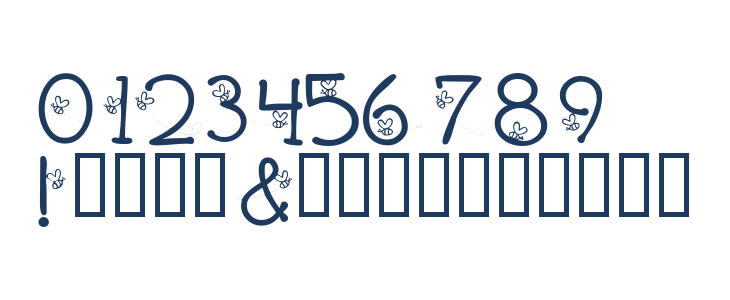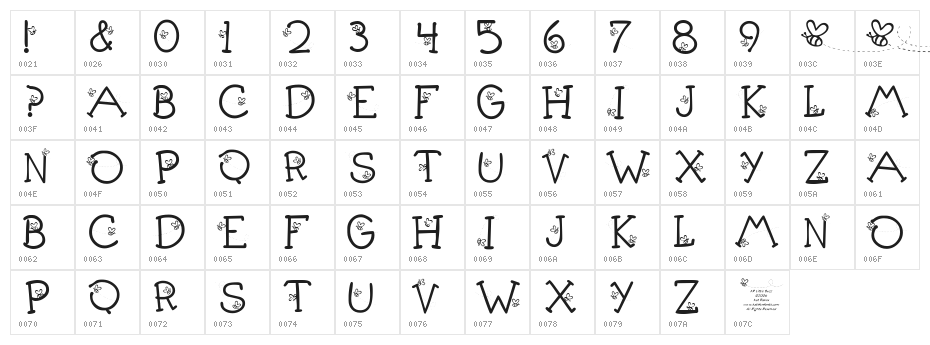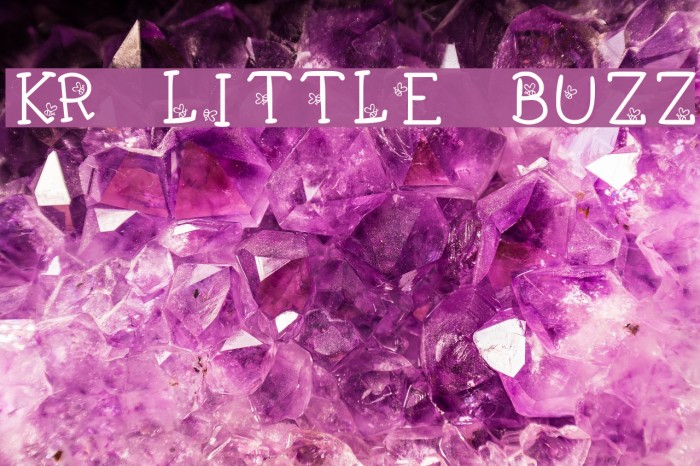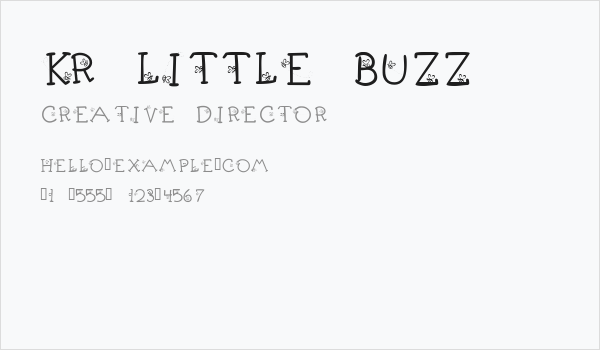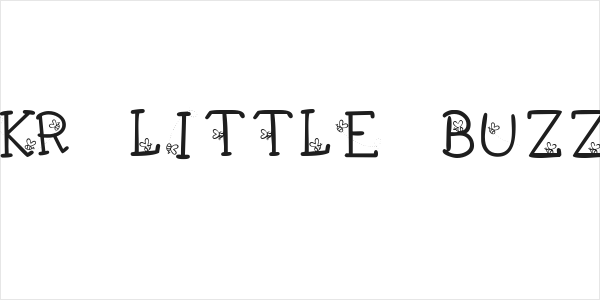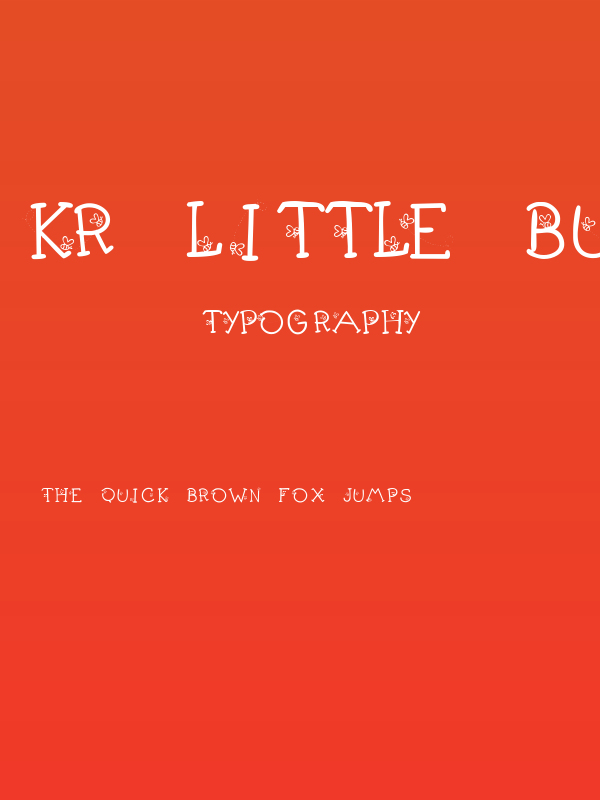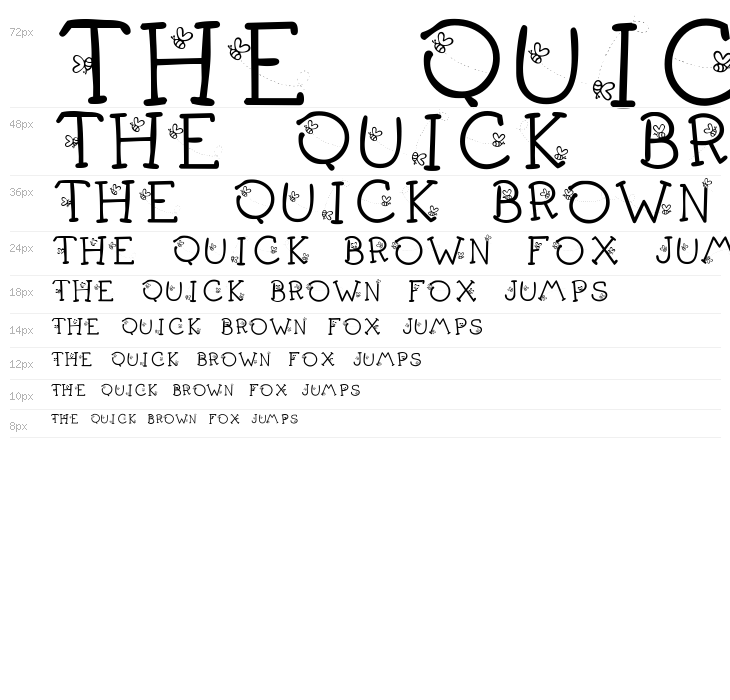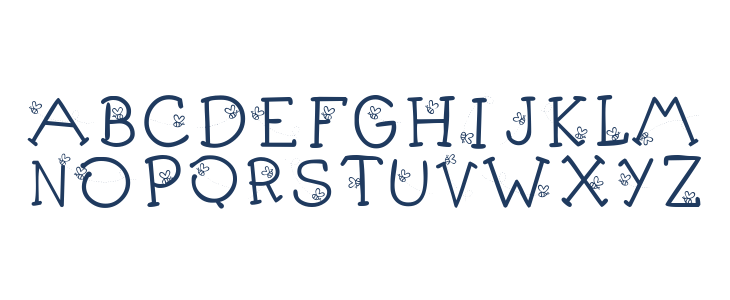
KR Little Buzz Font
KR Little Buzz Description
This whimsical and playful font features a unique design with small bee illustrations integrated into each character. The letters are bold and rounded, with a slight tilt that adds to the playful nature. The bees are strategically placed, often at the ends or intersections of strokes, creating a lively and dynamic appearance. The numbers and special characters follow the same design theme, ensuring consistency across all elements. This font is perfect for projects that require a fun and engaging look, such as children's books, playful branding, or themed event invitations.